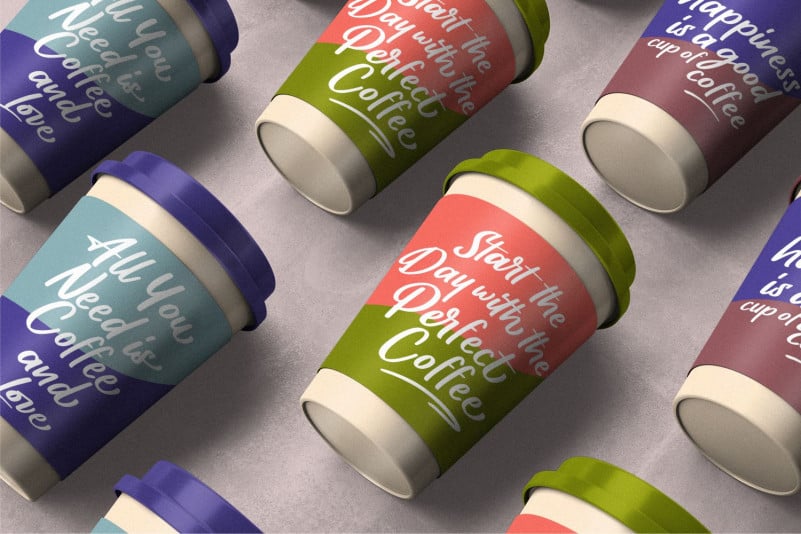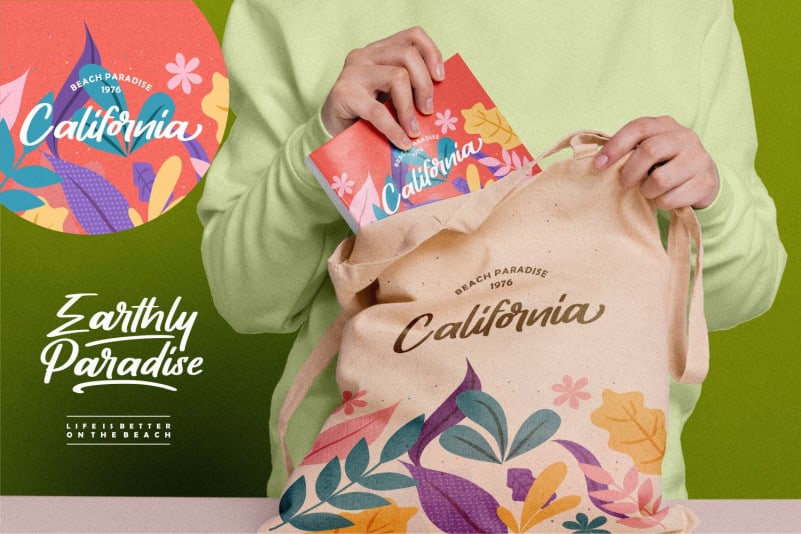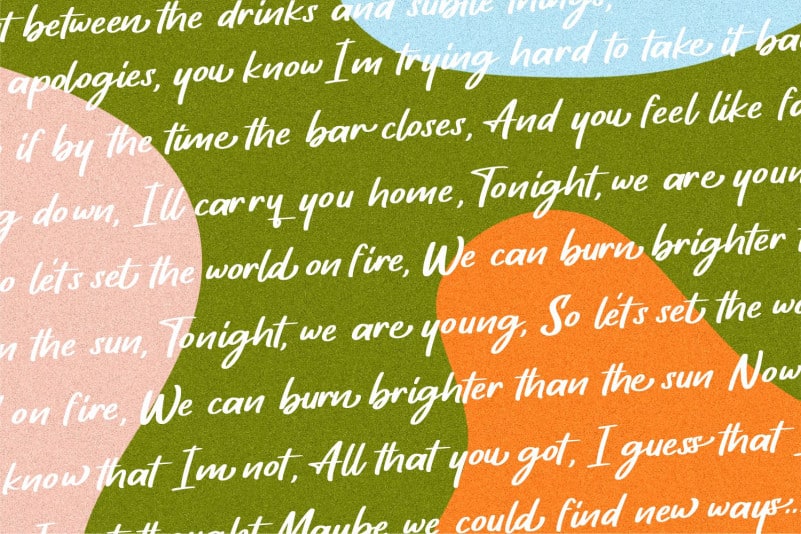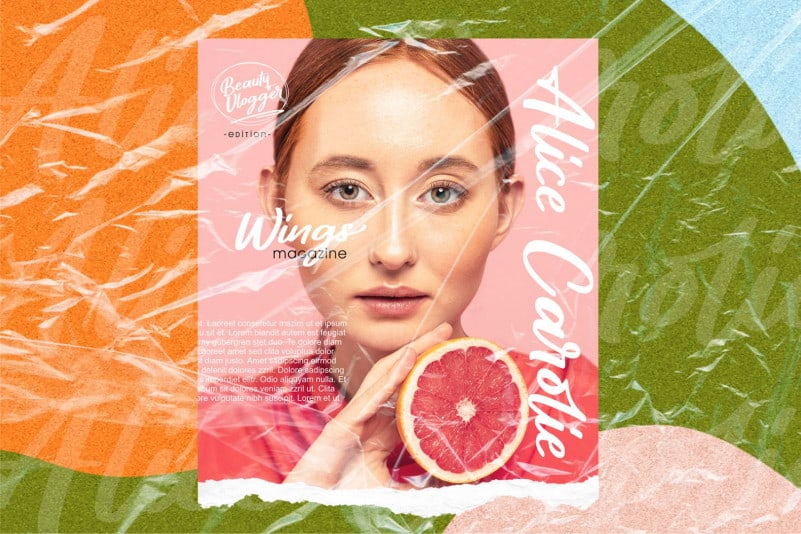
Quarts Pachino Script Font
Quarts Pachino Script Font is a cursive brushed script font. Warm, romantic and jolly, this font will turn each of your project ideas into real works of art. Have fun with this beautiful font and explore its endless variations.